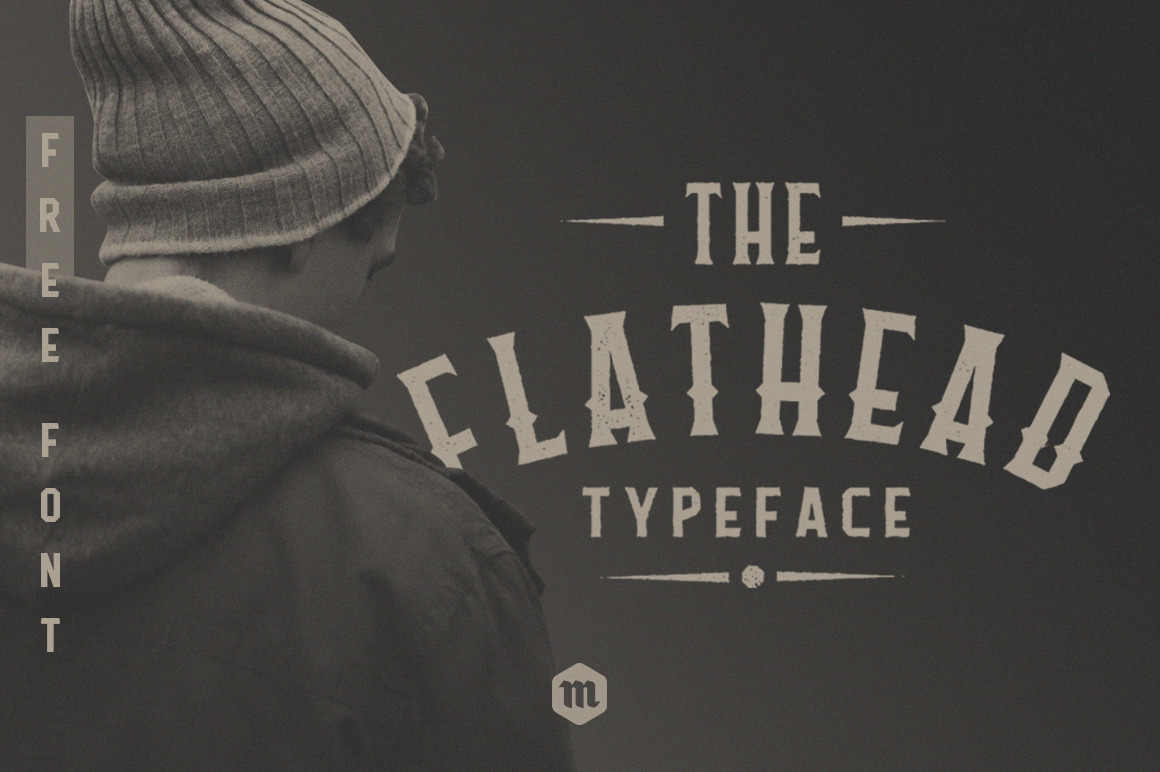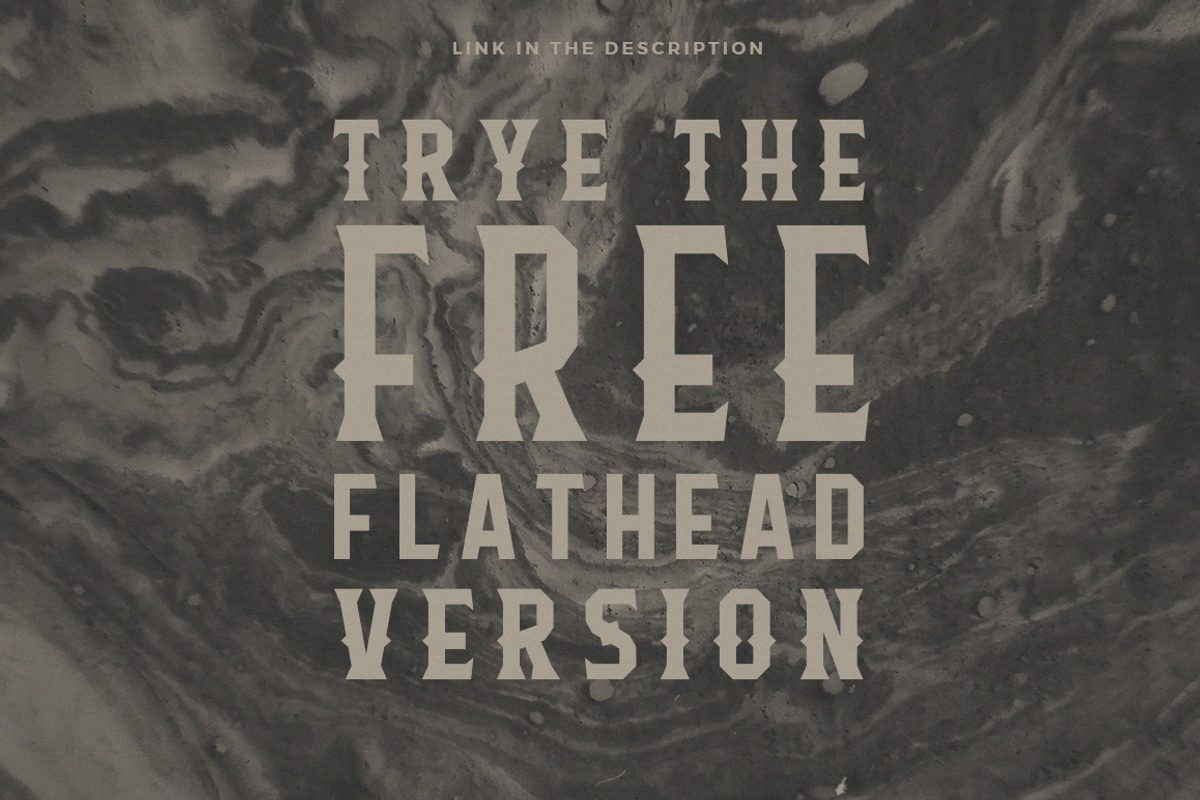
Flathead Vintage Typeface | Font
Flathead is a 3 font family with a mono weight and different decorations.
Inspired by american western culture and tattoos, is perfect to use in vintage-themed designs. Flathead is suitable for any project that requires an old western feel as the core design elements; such as logo, wedding invitation, greeting card, poster, etc.
- Flathead Regular
- Flathead Serif
- Flathead Deco